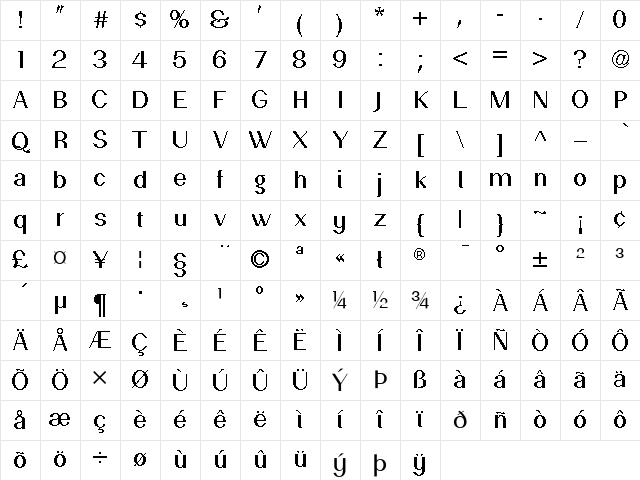
PassionSansPDag is a composed and adaptable typeface that performs quietly and consistently across a wide range of design contexts.
Pro Tip: Use PassionSansPDag in both headline and body roles to test its range before committing to a single application.